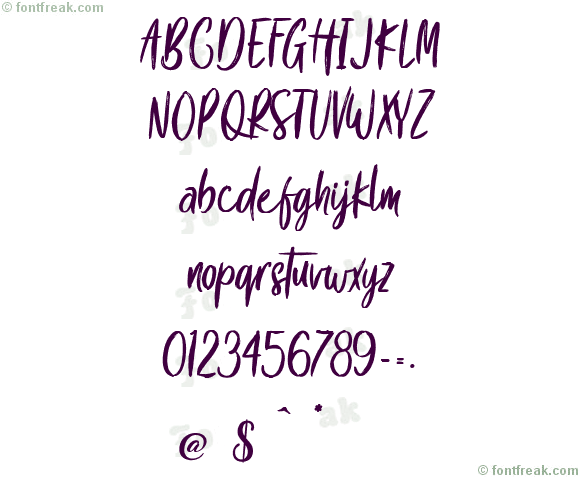
Sexy Queen
Introducing the Sexy Queen font by Suthi Srisopha, a captivating script typeface that effortlessly combines elegance with a touch of allure. This font falls under the decorative category, making it a perfect choice for projects that require a stylish and sophisticated flair. The visual characteristics of Sexy Queen are striking, featuring smooth, flowing strokes that vary in weight, creating a beautiful contrast that enhances its overall appeal. The spacing is well-balanced, allowing for readability while maintaining an artistic quality. Decorative elements within the lettering provide a unique charm, making it stand out in any design.
The Sexy Queen font is ideal for a variety of applications. It shines in wedding invitations, where its romantic style can convey love and elegance. Additionally, it can elevate movie posters, giving them a glamorous touch that attracts attention. Restaurant menus can benefit from its stylish presentation, helping to create a memorable dining experience. Content creators will find it suitable for branding and social media graphics, adding personality to their projects. Graphic designers and small business owners will appreciate the versatility of this font, as it allows for creative expression across multiple platforms.
What sets the Sexy Queen font apart is its ability to convey a sense of sophistication while remaining approachable. It captures the essence of modern elegance, making it a valuable addition to any designer's toolkit. With its free download option, anyone can incorporate this stunning typeface into their work. Whether you’re crafting a romantic invitation or designing a striking advertisement, the Sexy Queen font is sure to leave a lasting impression on your audience. Don't miss the chance to enhance your projects with this exquisite font.